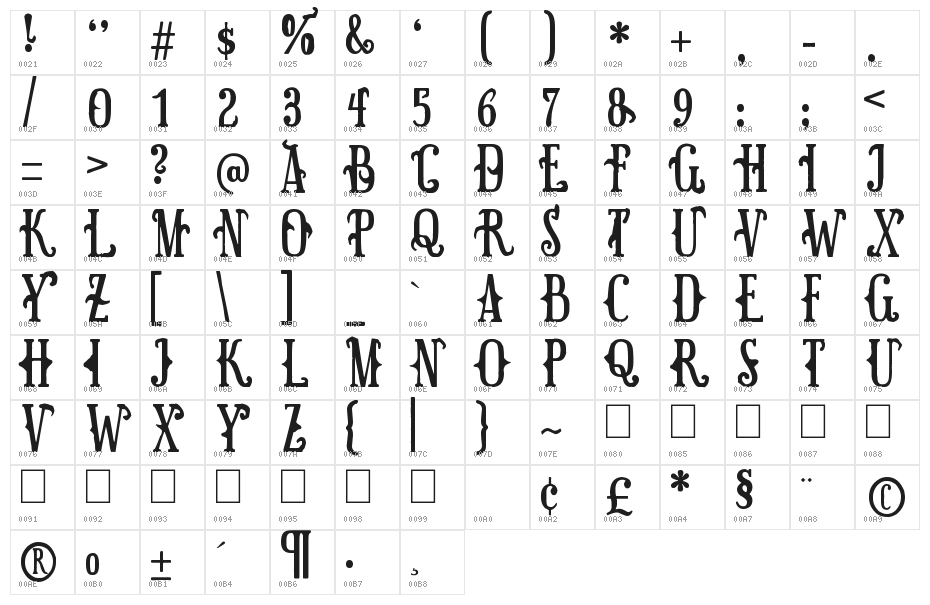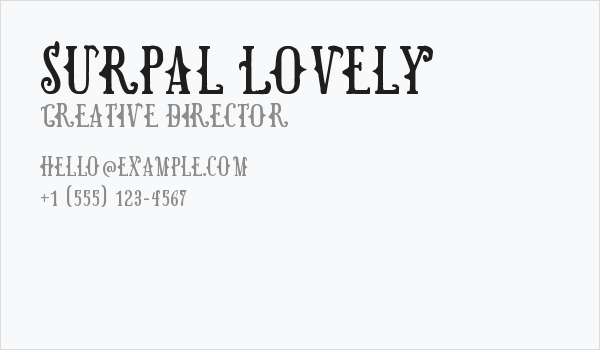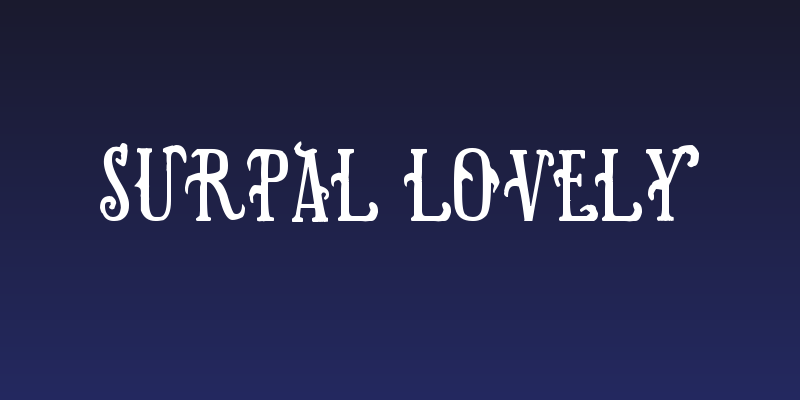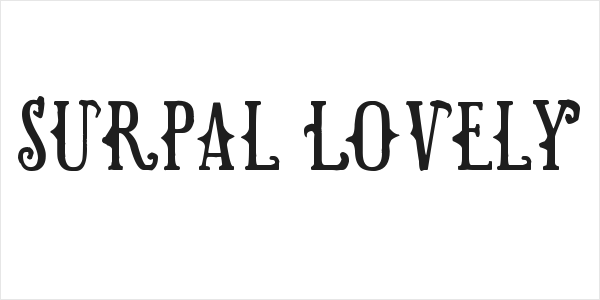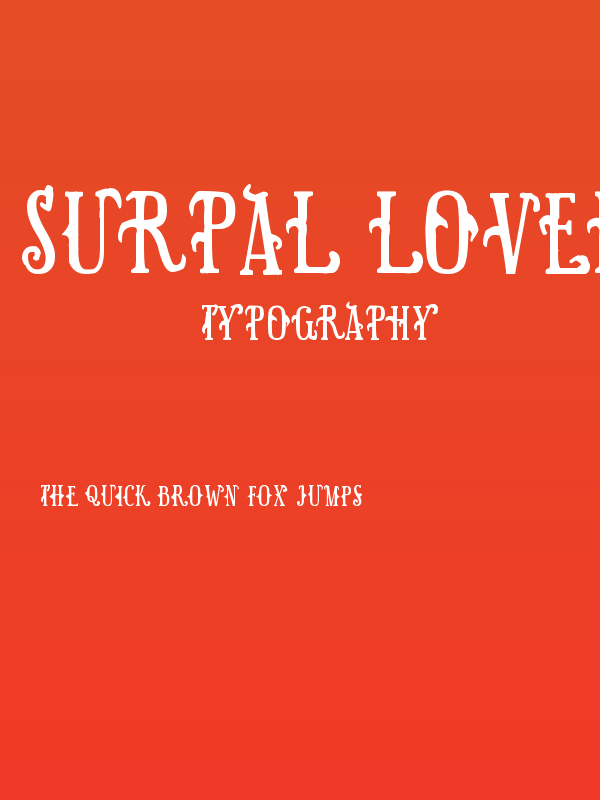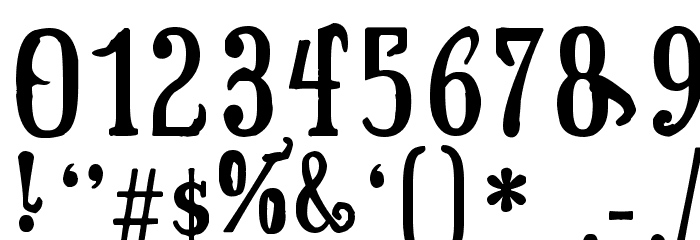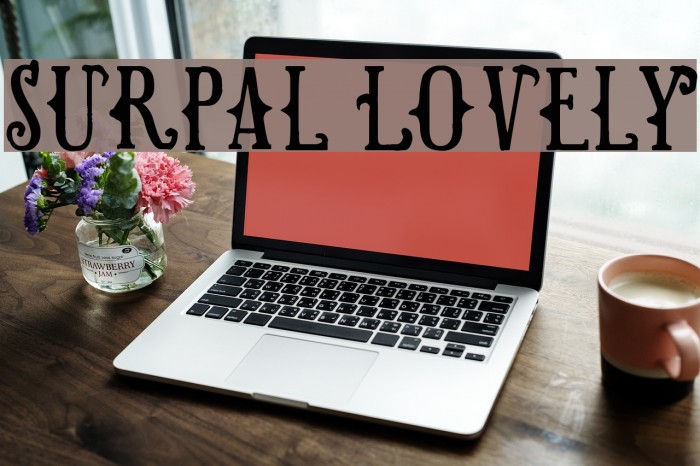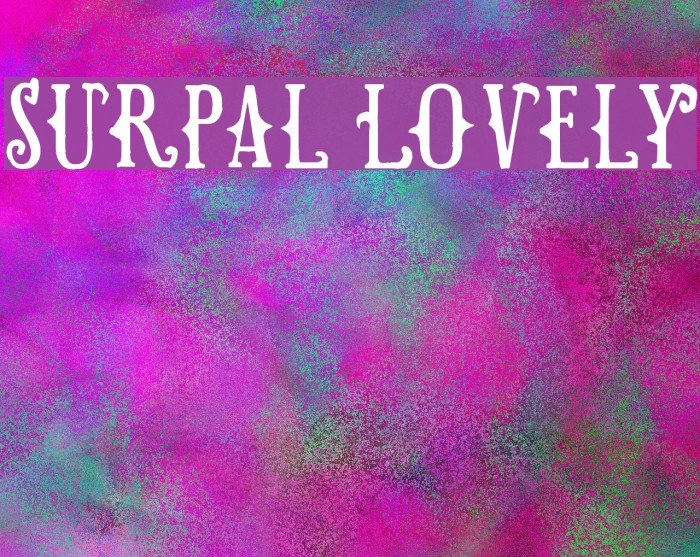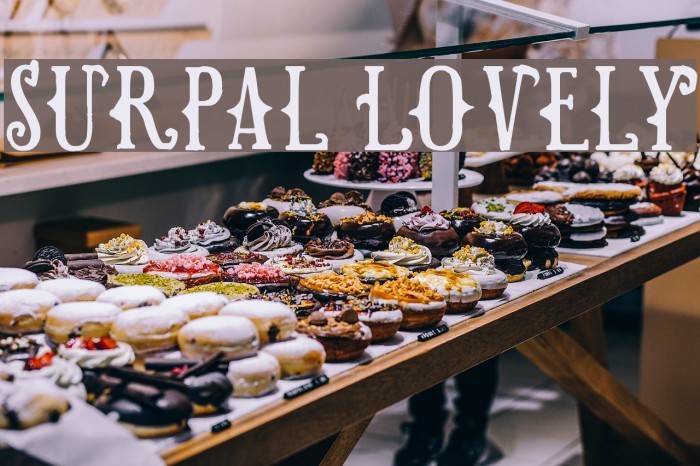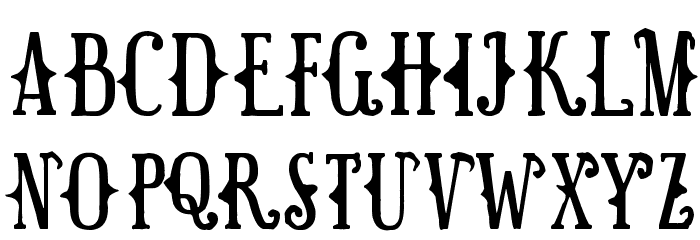
Surpal Lovely Font
This font features a bold and decorative style with unique, playful serifs that give it a whimsical and artistic appearance. The uppercase letters have a distinct flair, with exaggerated curves and strokes that add a sense of movement and creativity. The lowercase letters maintain a consistent style, complementing the uppercase with their own subtle embellishments. Numbers and special characters are equally stylized, ensuring a cohesive look across all elements. This font's bold presence and intricate details make it stand out, perfect for projects that require a touch of elegance and creativity.
| Proposed Projects | Ideal for creative projects such as invitations, posters, branding, and packaging where a whimsical and artistic touch is desired. |